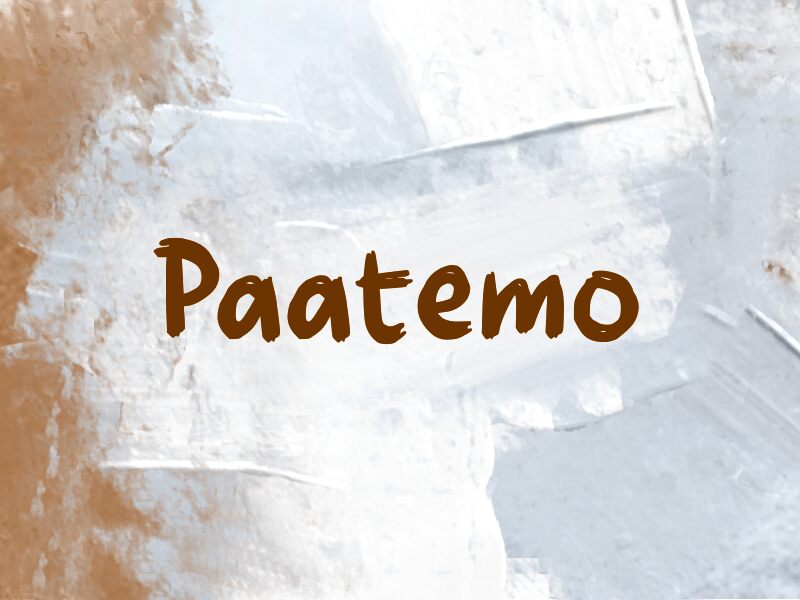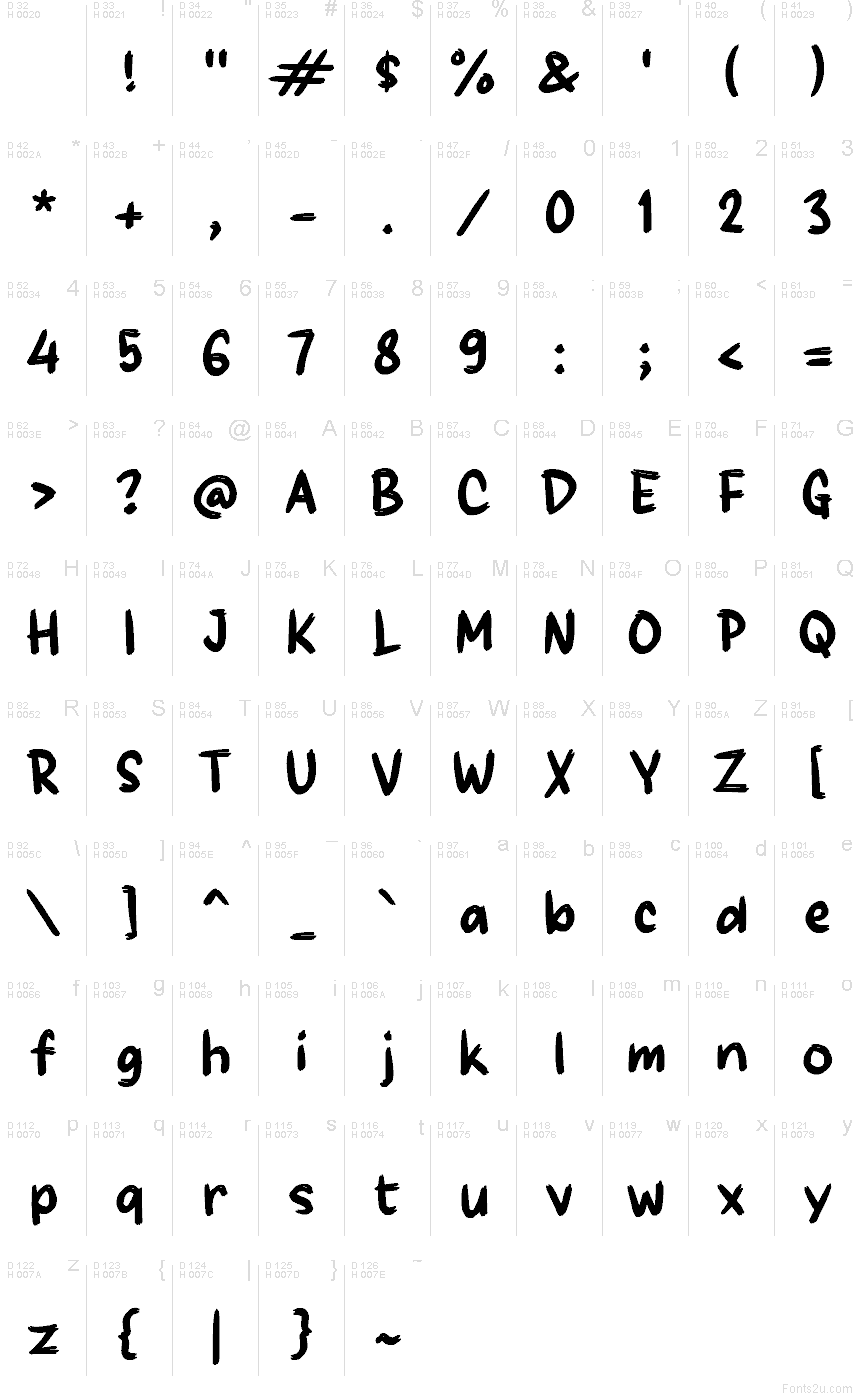
Paatemo
Paatemo font by wep is a free brush font that looks like it was painted in one confident sweep. Thick, inky strokes with rounded edges give it a bold, slightly messy energy, while the consistent letter shapes keep it easy to read. It feels like wet paint on cardboard—casual, loud, and a bit rebellious, without tipping into chaos.
Using Paatemo, headlines and short phrases jump off the page with a hand-painted, DIY charm that works beautifully for posters, social media graphics, stickers, packaging, event flyers, and kids’ projects. This free font really shines when you let it go big, so don’t be shy with the size. For a clean contrast, pair Paatemo with a simple geometric sans serif for smaller supporting text.